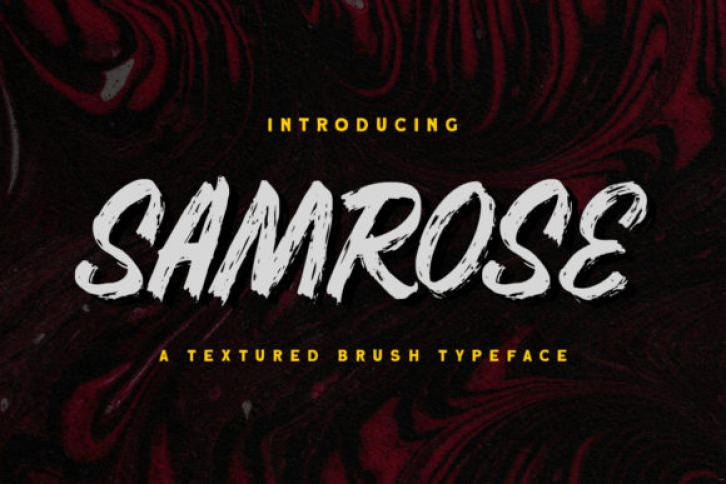
Samrose is a unique textured brush font. It deliveries a strong feel and it’s the perfect choice for logos, branding, social media posts, magazines and much more!